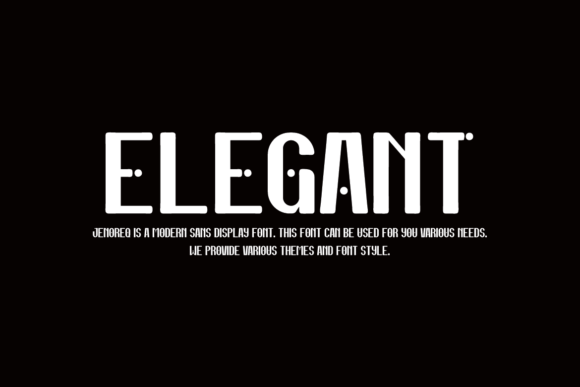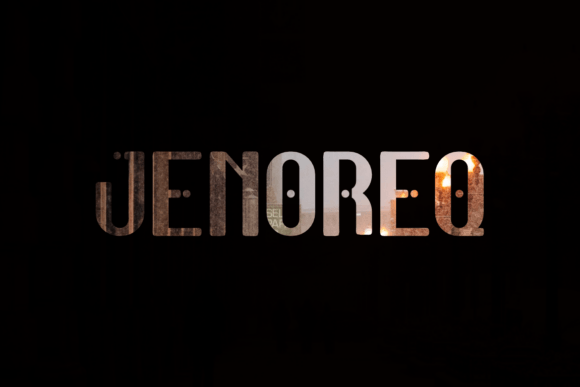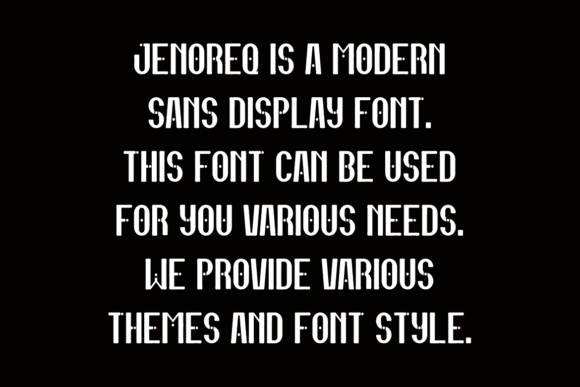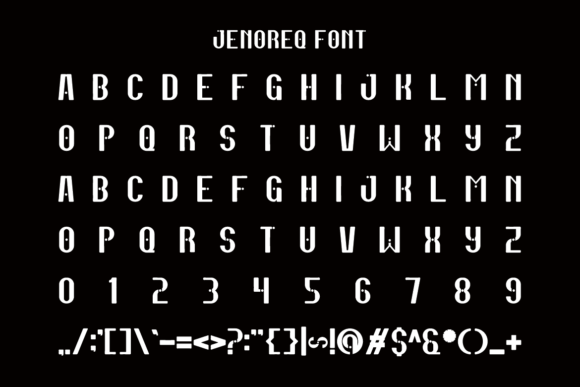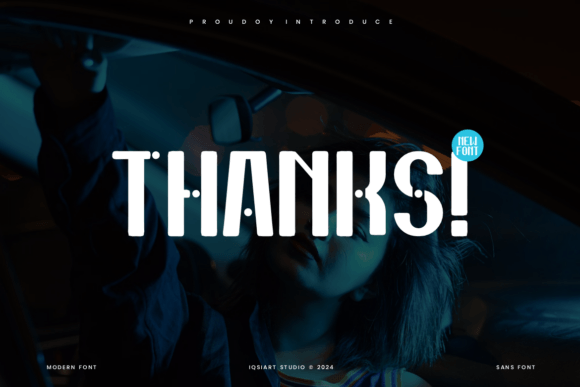
Introduction to Jenoreq Font
Jenoreq is an incredibly cool and unique sans serif font.
It has a modern yet whimsical style and it will undoubtedly immerse your designs into a magical world .